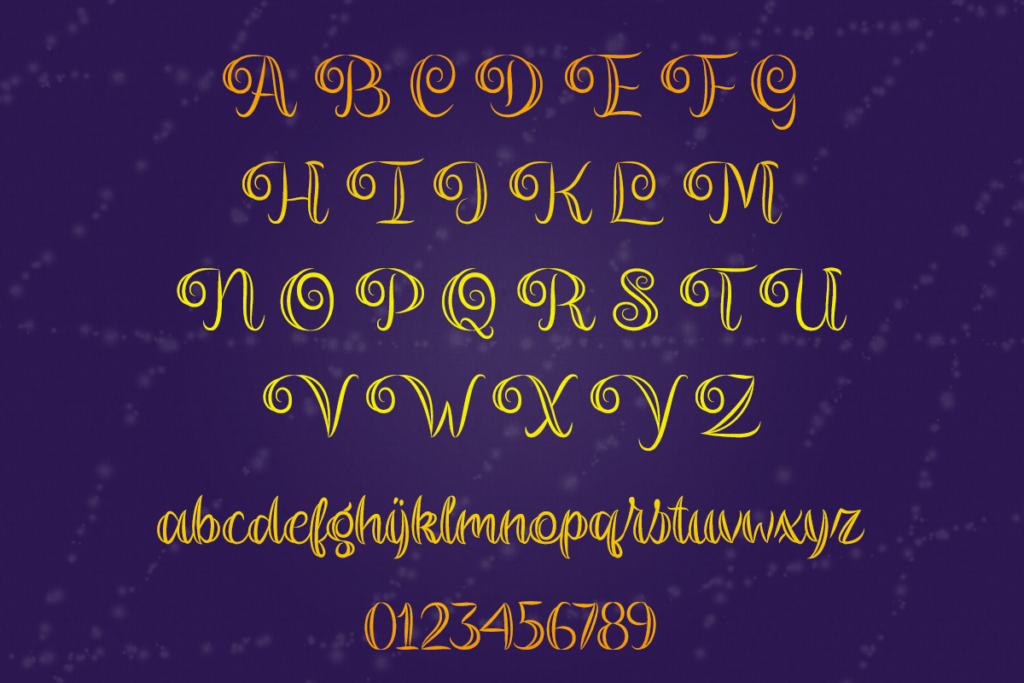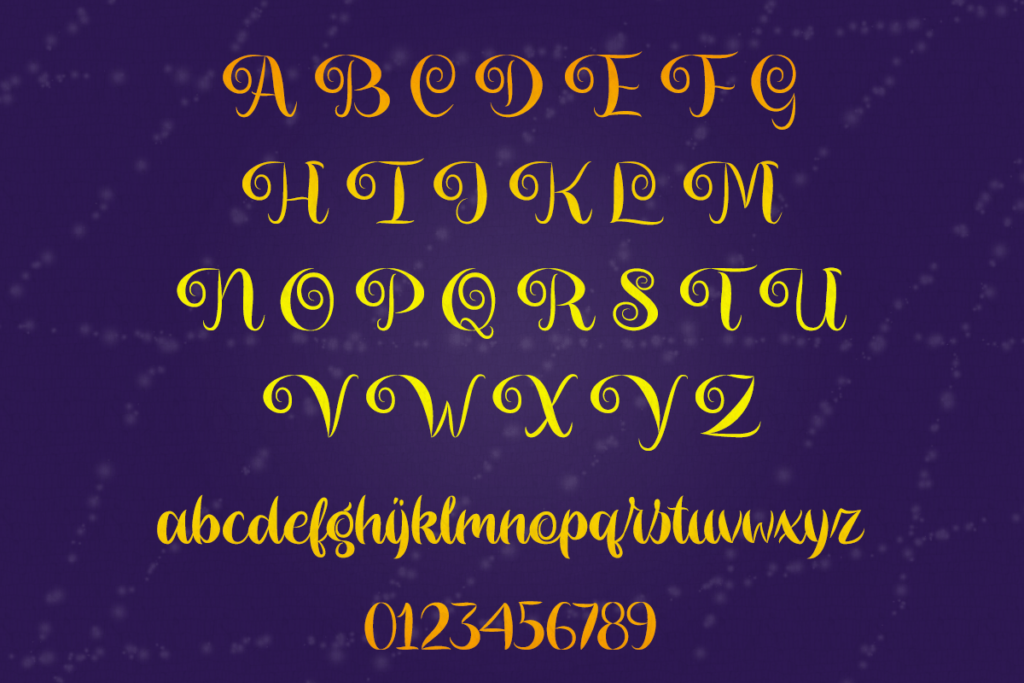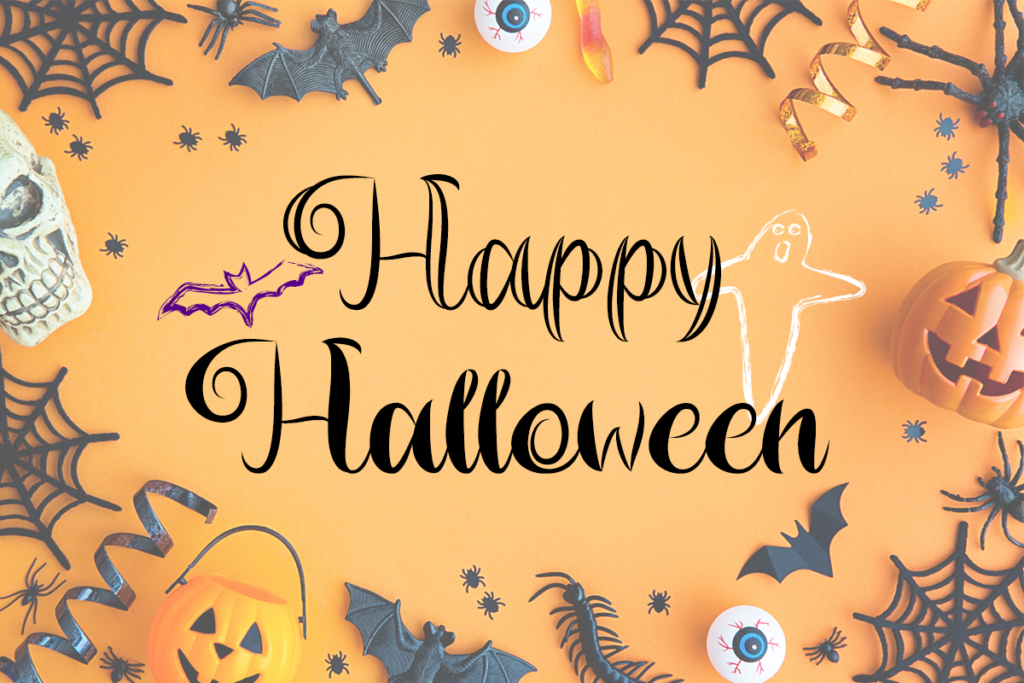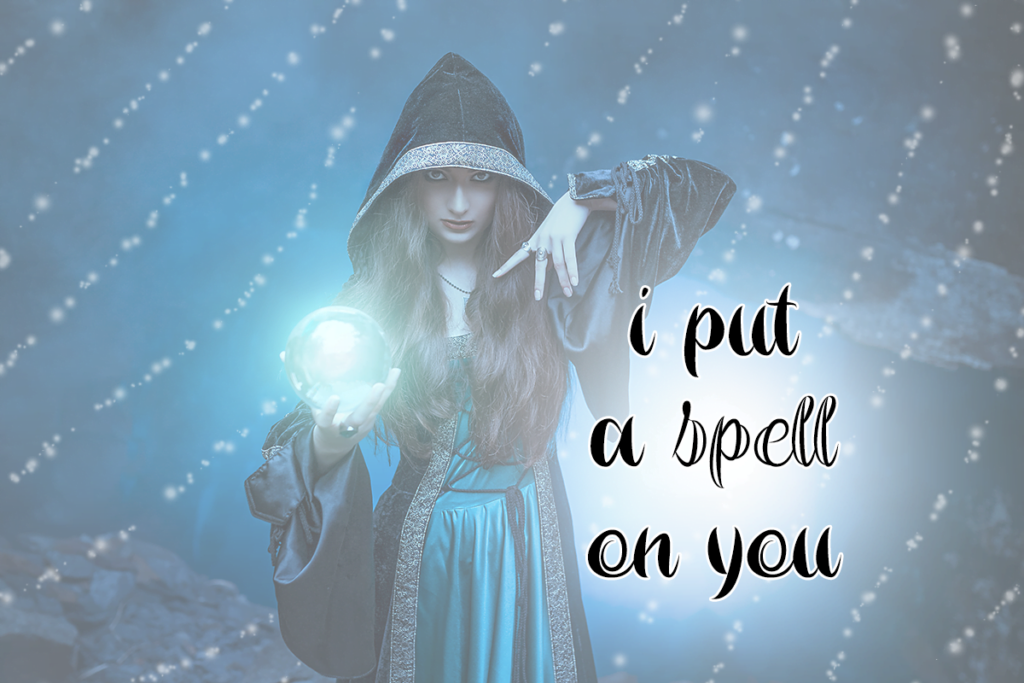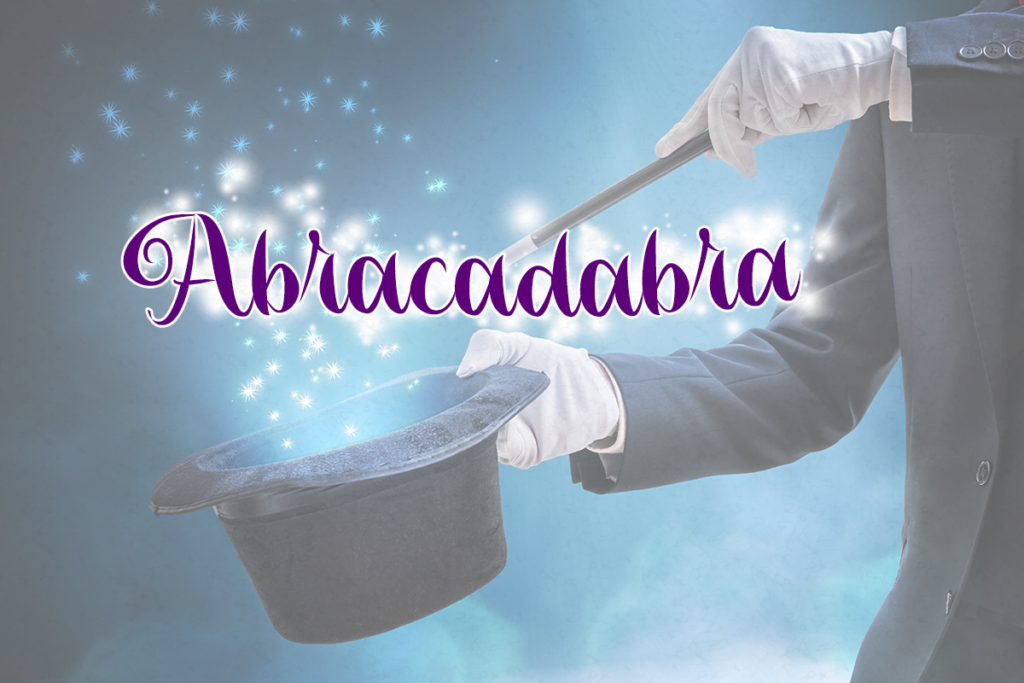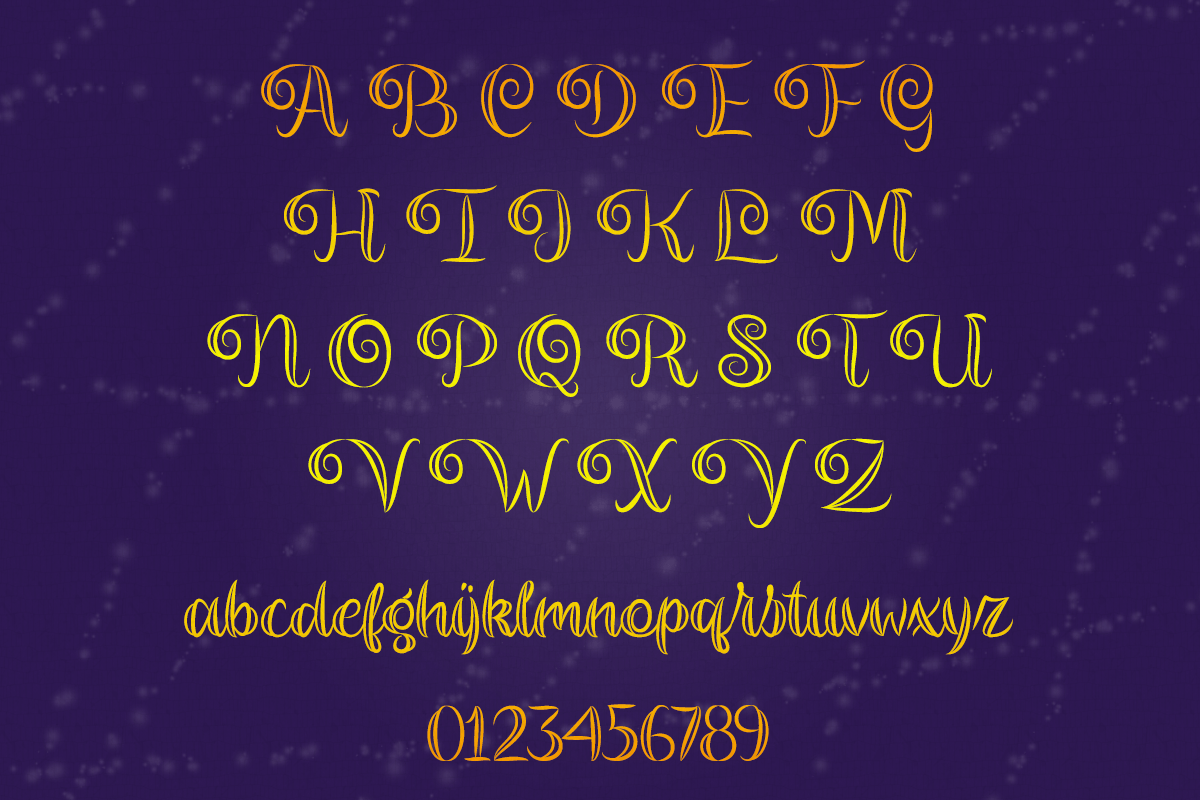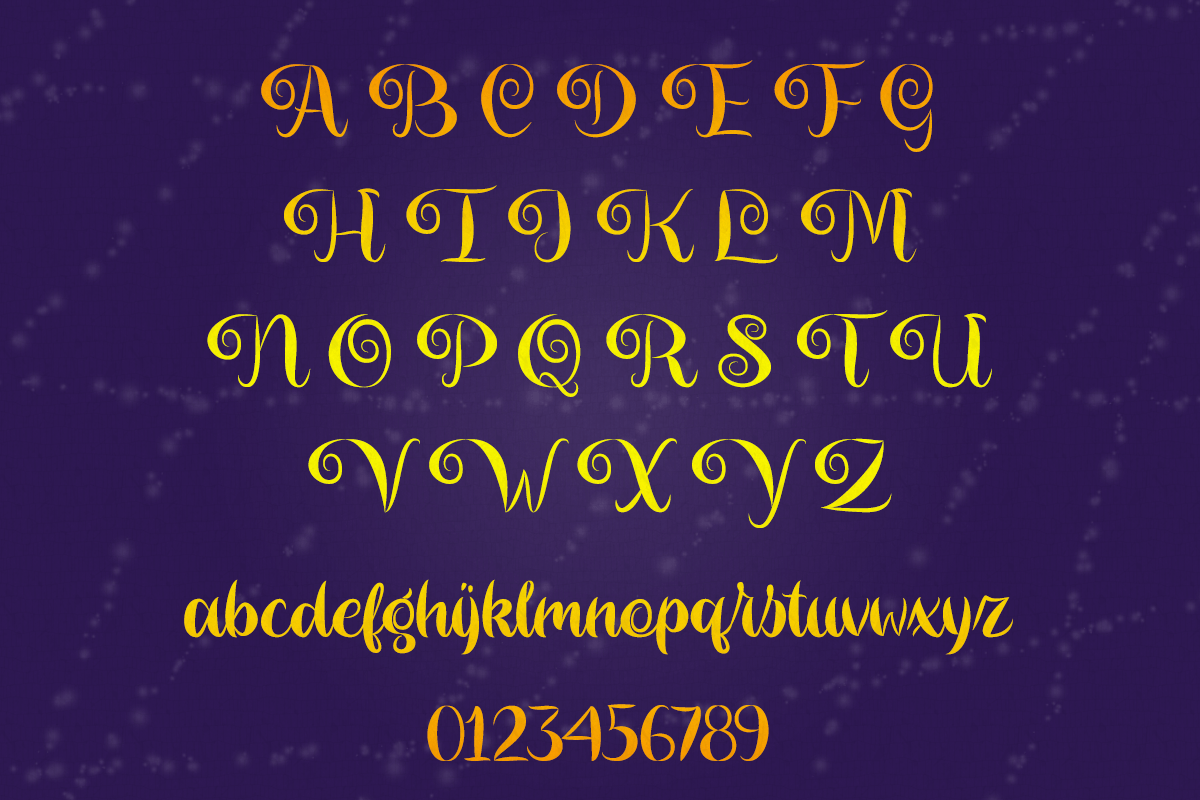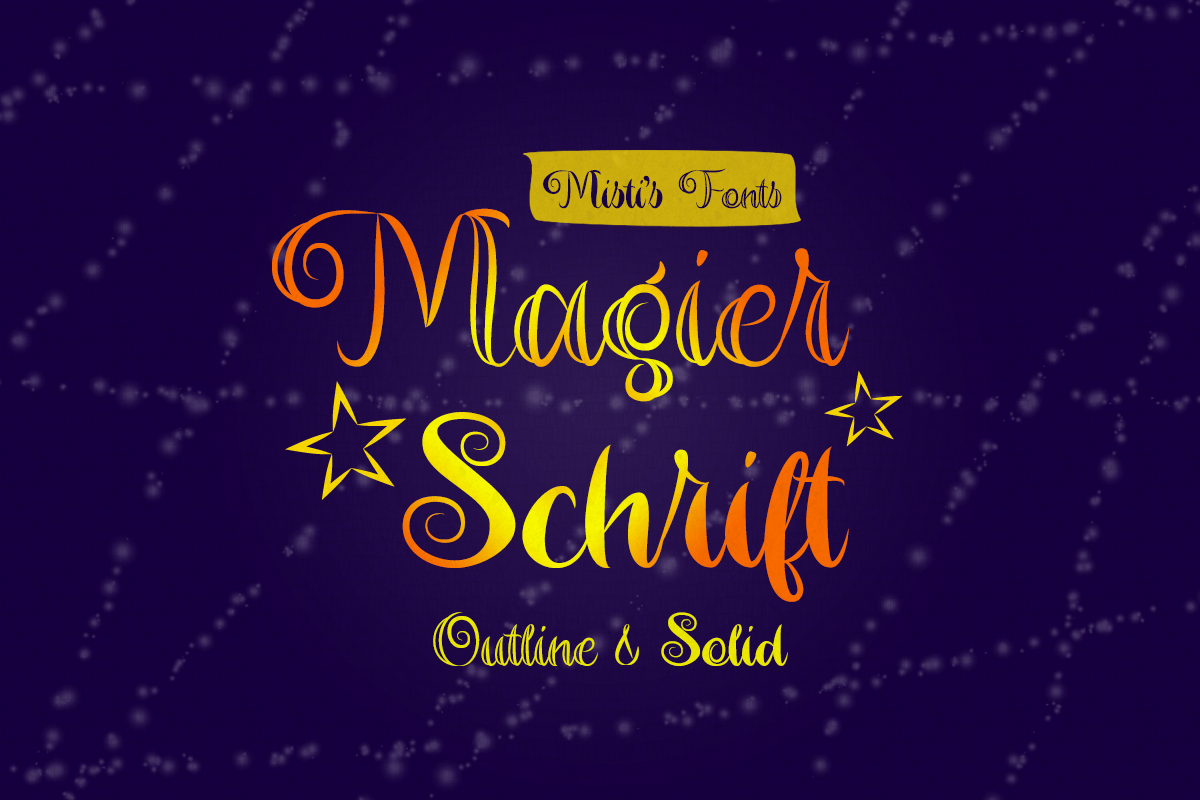
Magier Schrift
Magier Schrift is an exquisite and unique handwritten font, masterfully designed to become a true favorite. It maintains its classy calligraphic influences while feeling contemporary and fresh. Fall in love with it and bring your projects to the highest levels!